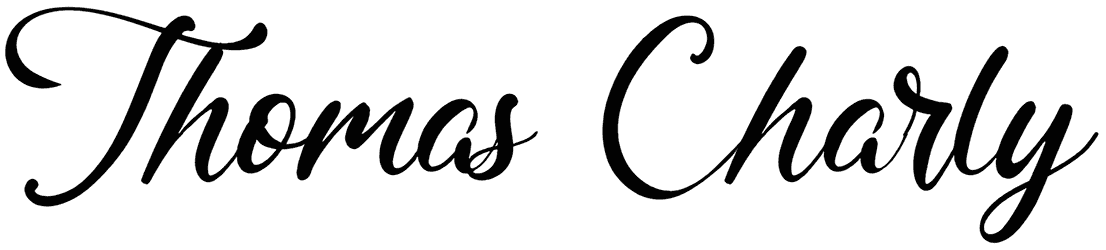
Thomas Charly Font
Due to the cursive style of Thomas Charly, it would look insanely fit for a vast range of editorial projects like brand descriptions, flyers, diplomas, merchandise, or blog posts.
This script font comes with rounded and angular characters, so it can bring a sense of professionalism, vivacity, personalization, or drama to any kind of artwork. If you crave to have another calligraphy font the same as this one, just take a look at our rich font collection.